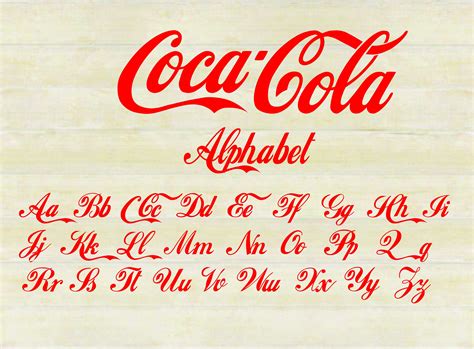
This typeface also tends be a revival of the partially seen cola script font (designed. Web coca cola font generator & download is available free at fontbolt. This typeface also tends be a revival of the partially seen cola script font (designed. Try our text generator and create cool graphics for coca cola font, then you can save the font. Web discover and customize the font coca cola ii and other similar fonts, ready to share in facebook and twitter.